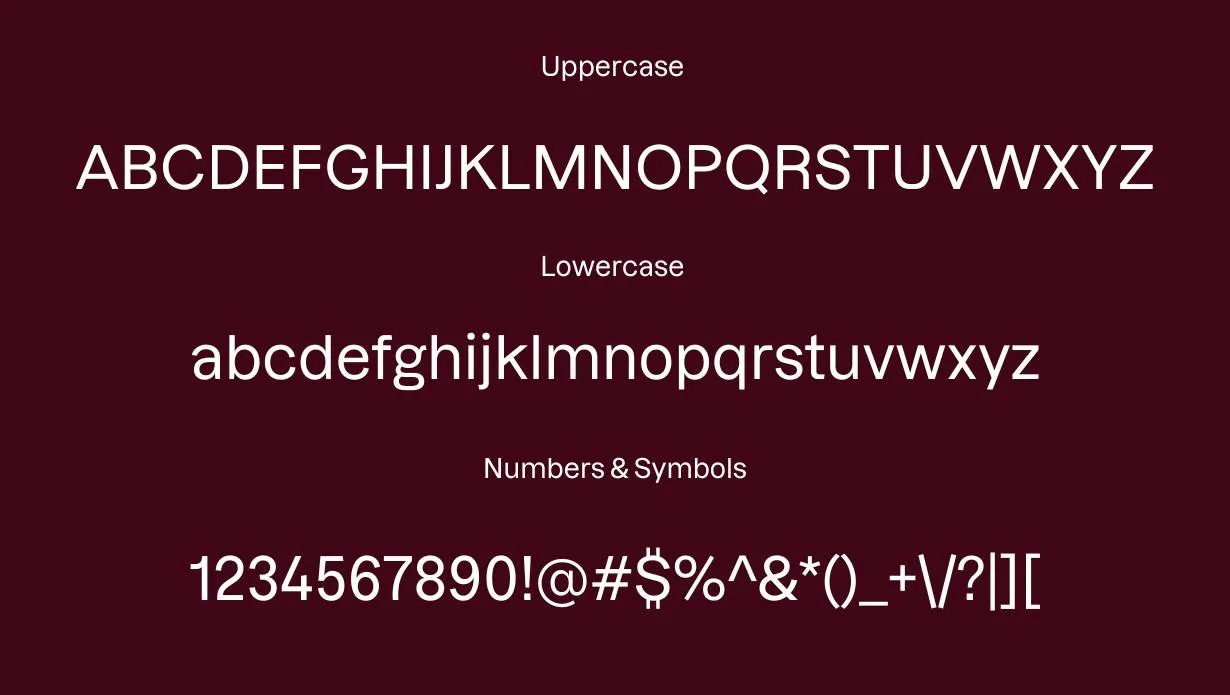
The Dazzed Font is a vibrant and dynamic choice in typography. Its energetic characters are well-suited for projects seeking to convey excitement and liveliness.
| Name | Dazzed Font |
| Designer | Martin VĂ¡cha |